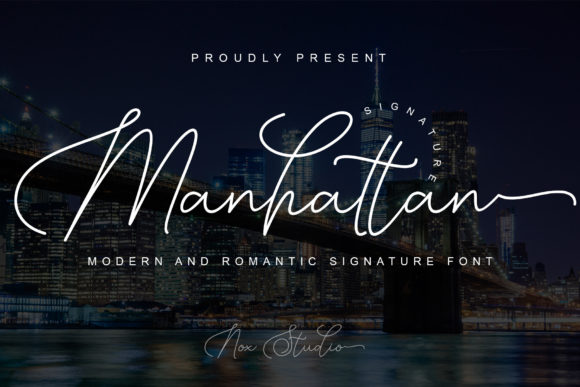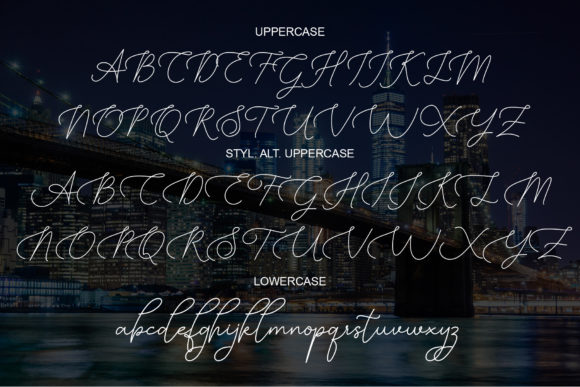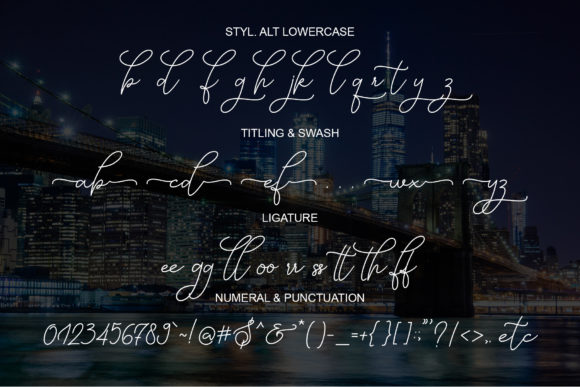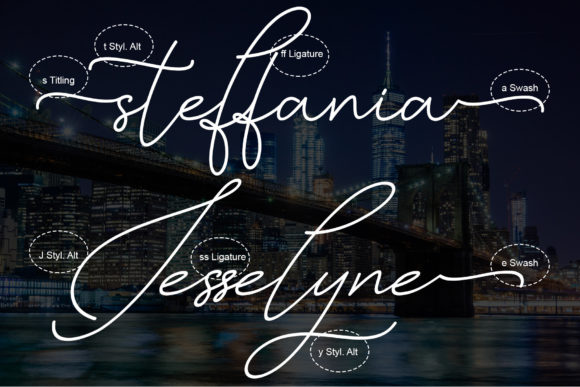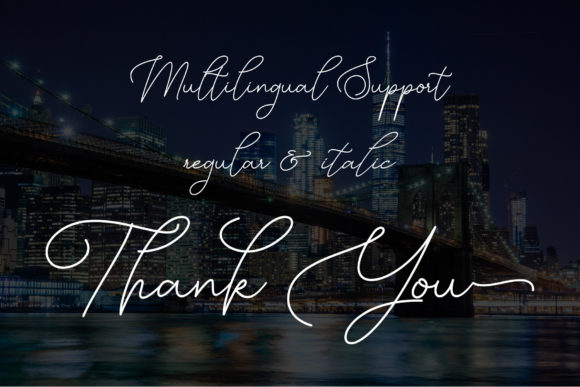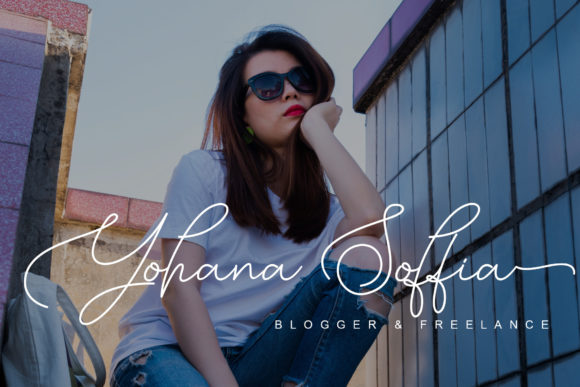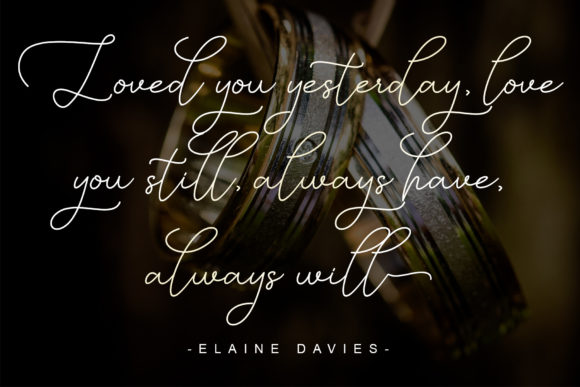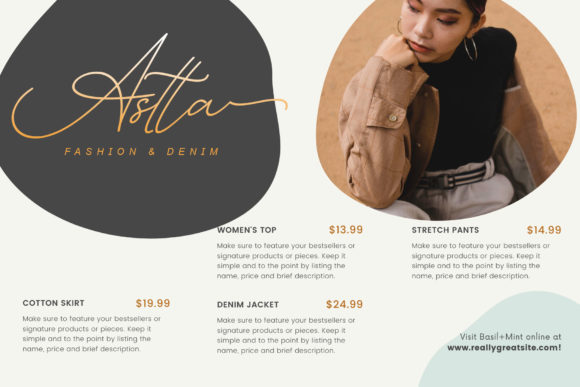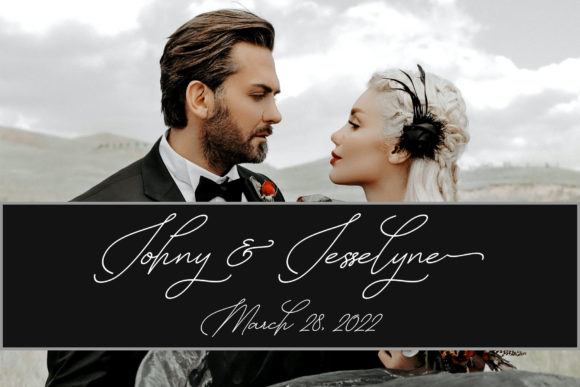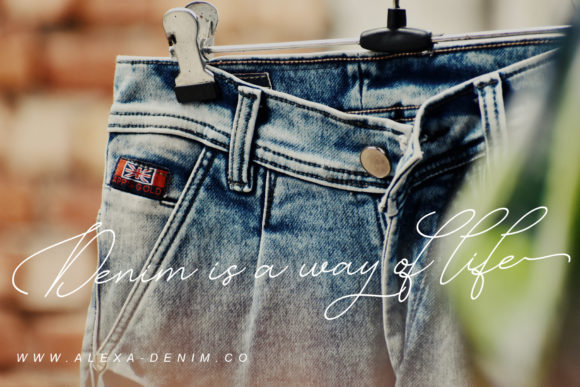
Manhattan Signature Font
About Manhattan Signature Font
Manhattan Signature is a dazzling and timeless signature script font. It is the best choice for creating eye-catching logos, branding, wedding invitation, quotes, and others. This font is PUA encoded, which means you can access all of the glyphs and swashes with ease!